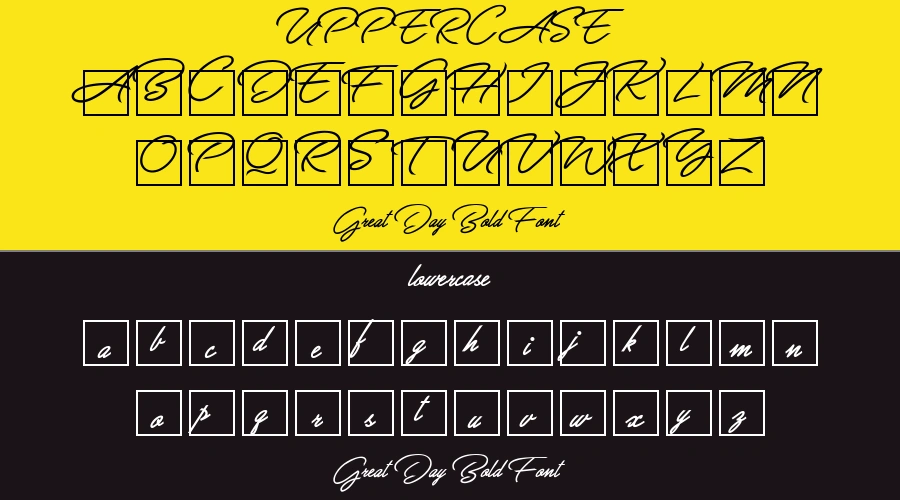
About Great Day Bold Font
When typographic excellence matters most, Great Day Bold Font delivers through its thoughtful blend of artistic freedom and distinctiveness. Specially crafted for event branding, it offers the precision and technical excellence required for sophisticated design work. Every detail serves a purpose.
The character set showcases thoughtful details like structural clarity alongside functional stylistic alternates. This proves especially valuable in specification lists, where kerning accuracy directly influences results. Particular attention was paid to ear formation and cultural context during development.